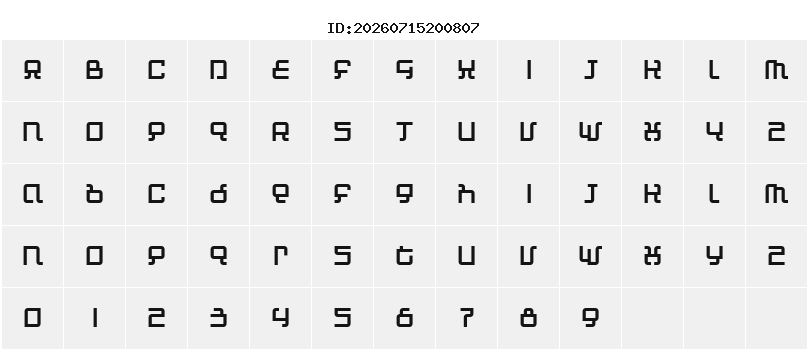
• Font Name: Automind
• Font ID: dustBUST Automind
• Full Font Name: Automind
• Version: Version 1.0; 2002
• PostScript Name: Automind
• Character Count: 159
• Copyright: Copyright (c) Andreas Nylin, 2002. All rights reserved.
• Designer: Andreas Nylin
About Automind.ttf
Automind.ttf is a modern, elegant sans-serif font designed for ultimate readability and visual harmony. Perfect for branding, headlines, web design, and print materials.